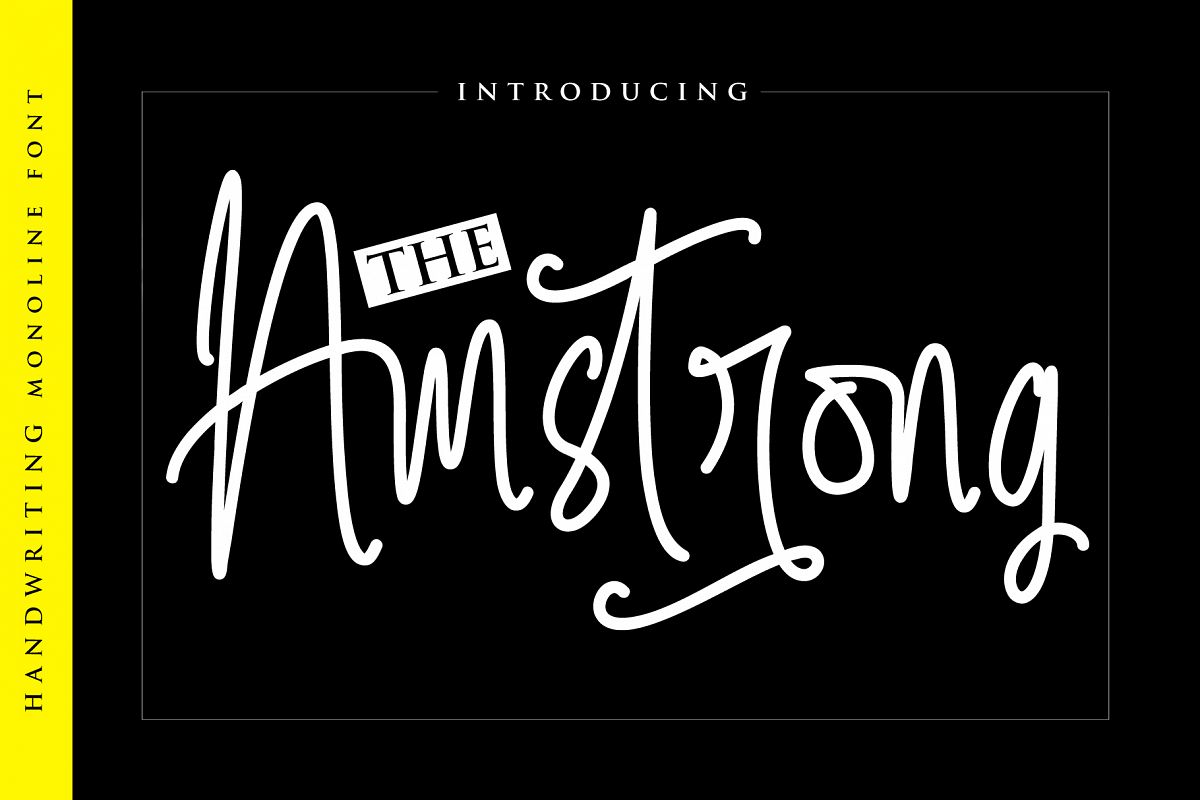
The Amstrong
TheAmstrong-Regular
The Amstrong is handwriting monoline font, contemporary approach to design, handmade natural with an less regular baseline. Suitable for use in title design. Such as apparel, invitations, books tittle, stationery design, quotes, branding, logos, greeting card, t-shirt, packaging design, poster and more.